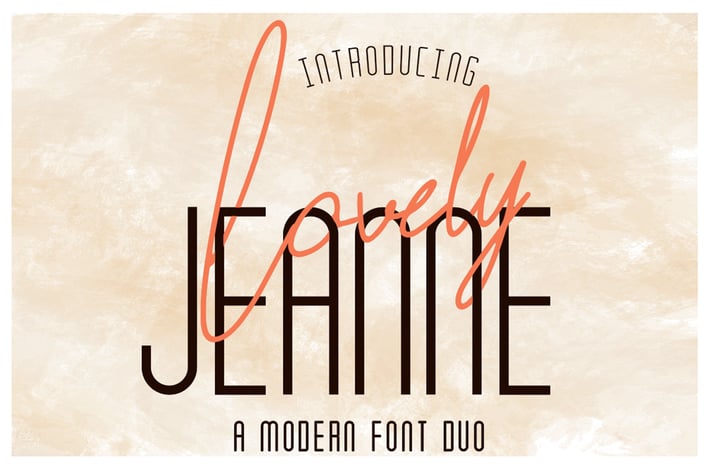
Lovely Jeanne - Script Font
Lovely Jeanne font duo is simple beautiful font with classy taste, come with script and two weight ALL CAPS sans serif variations, opentype feature such as ligatures.
More than 50 Ligature